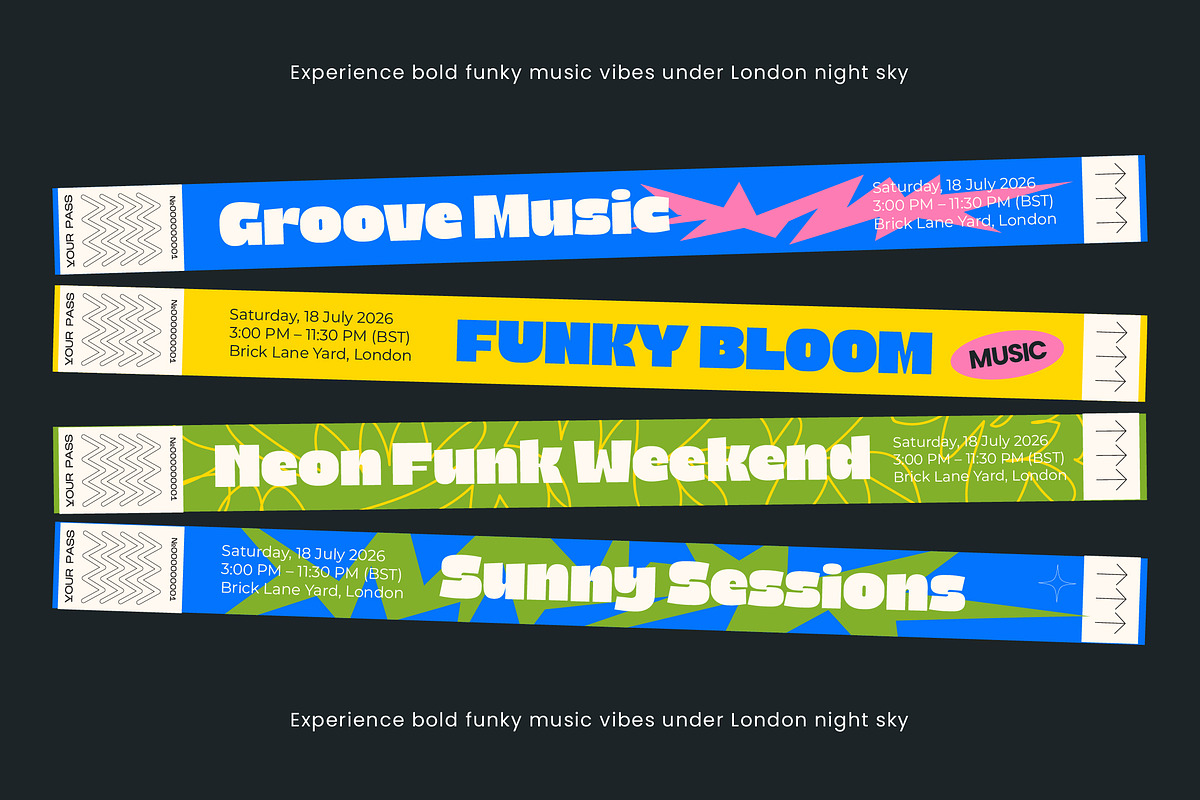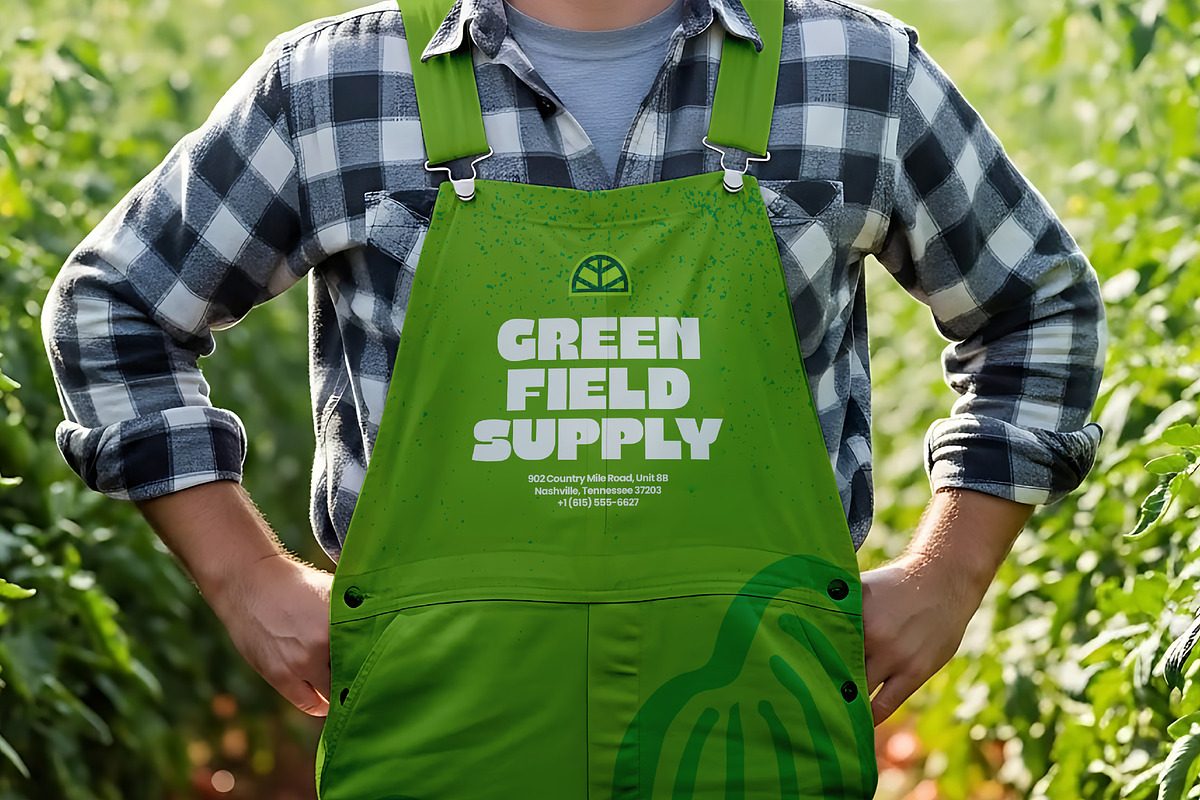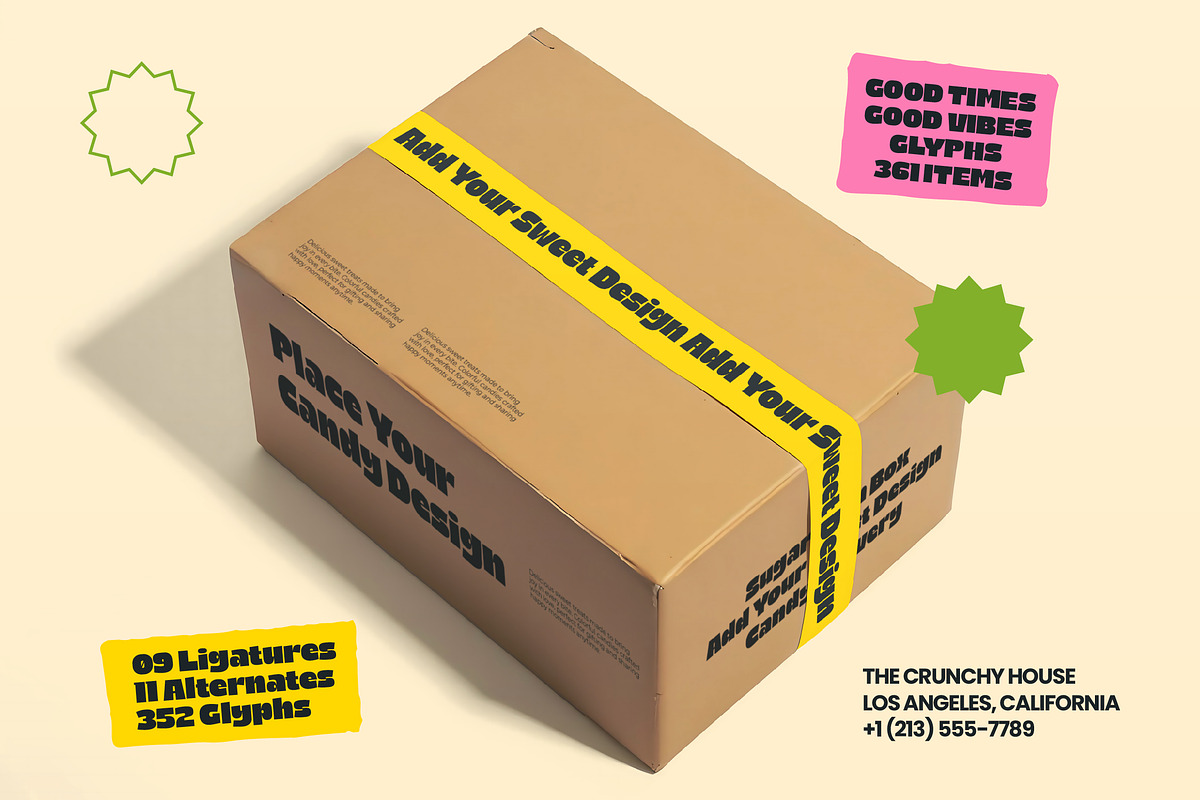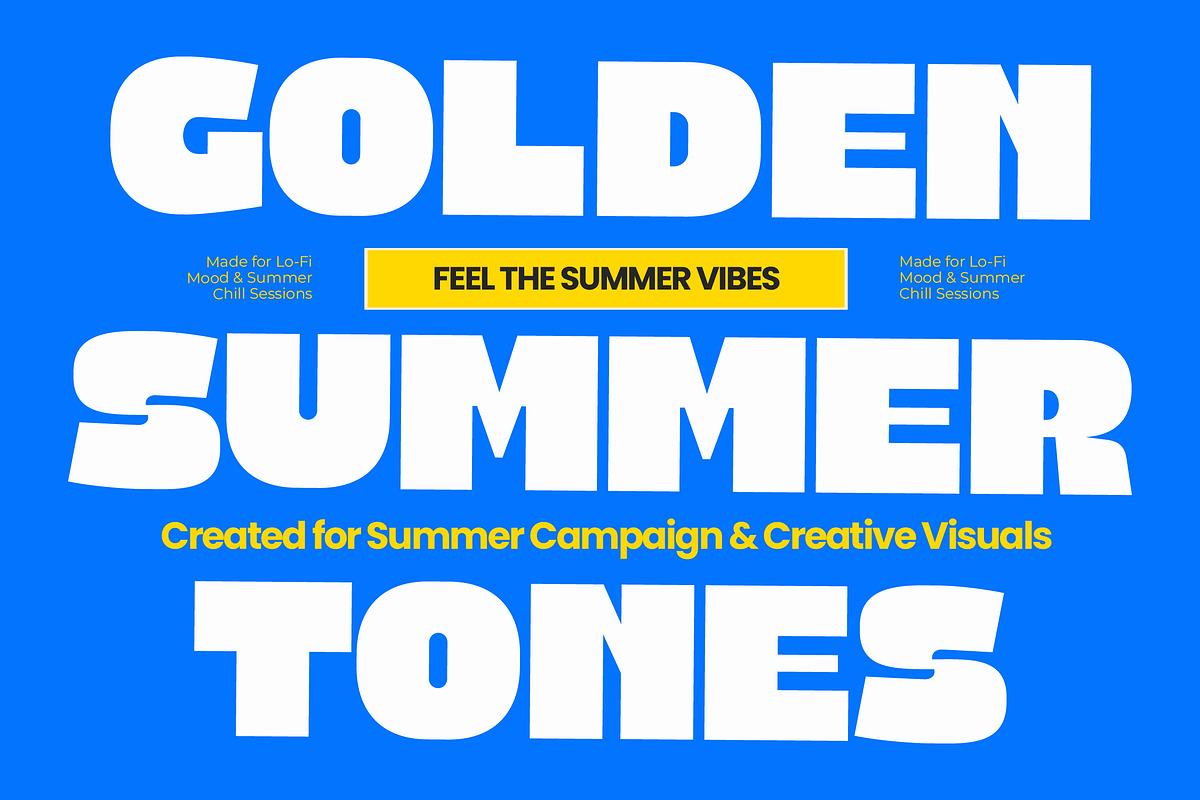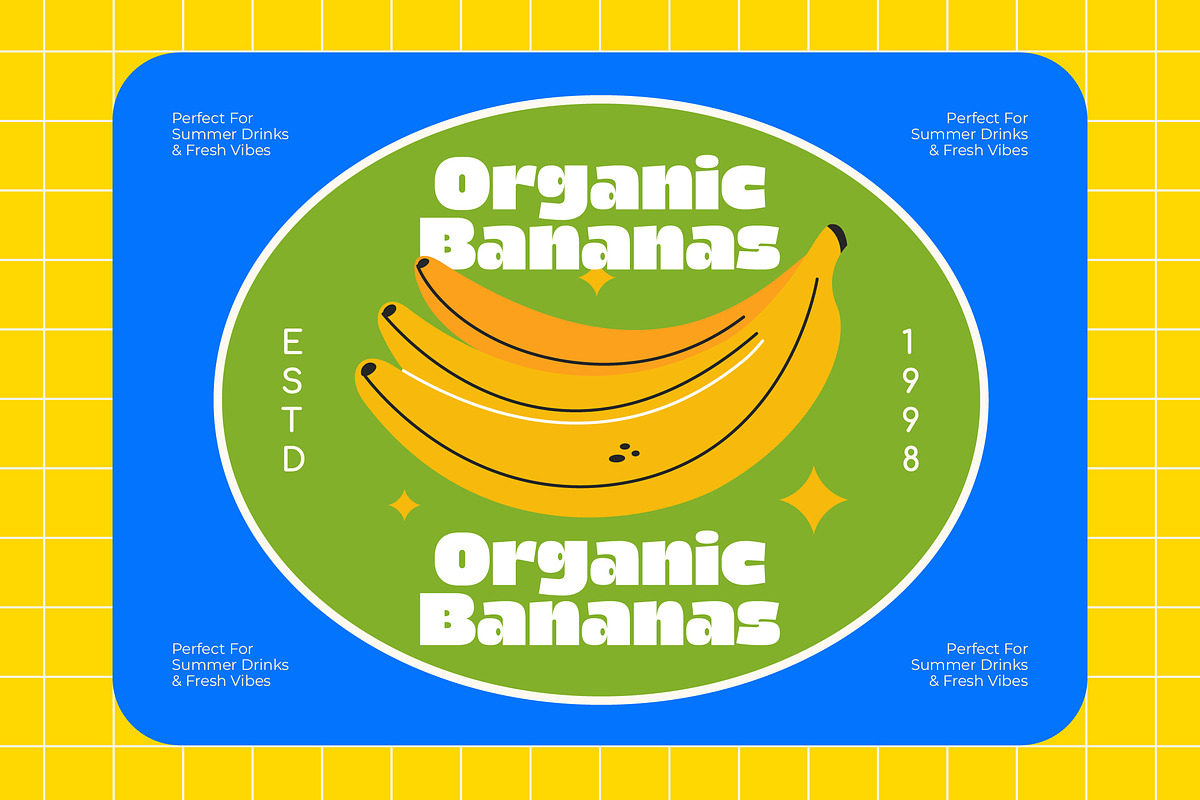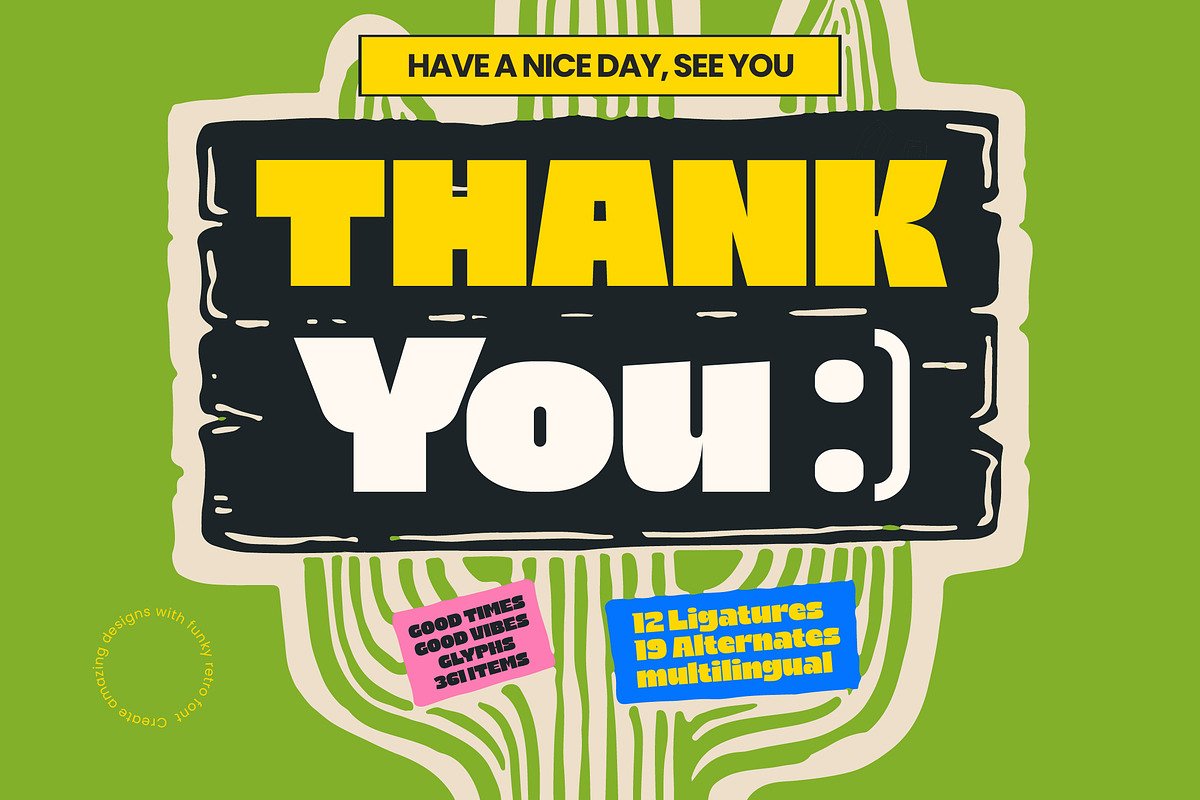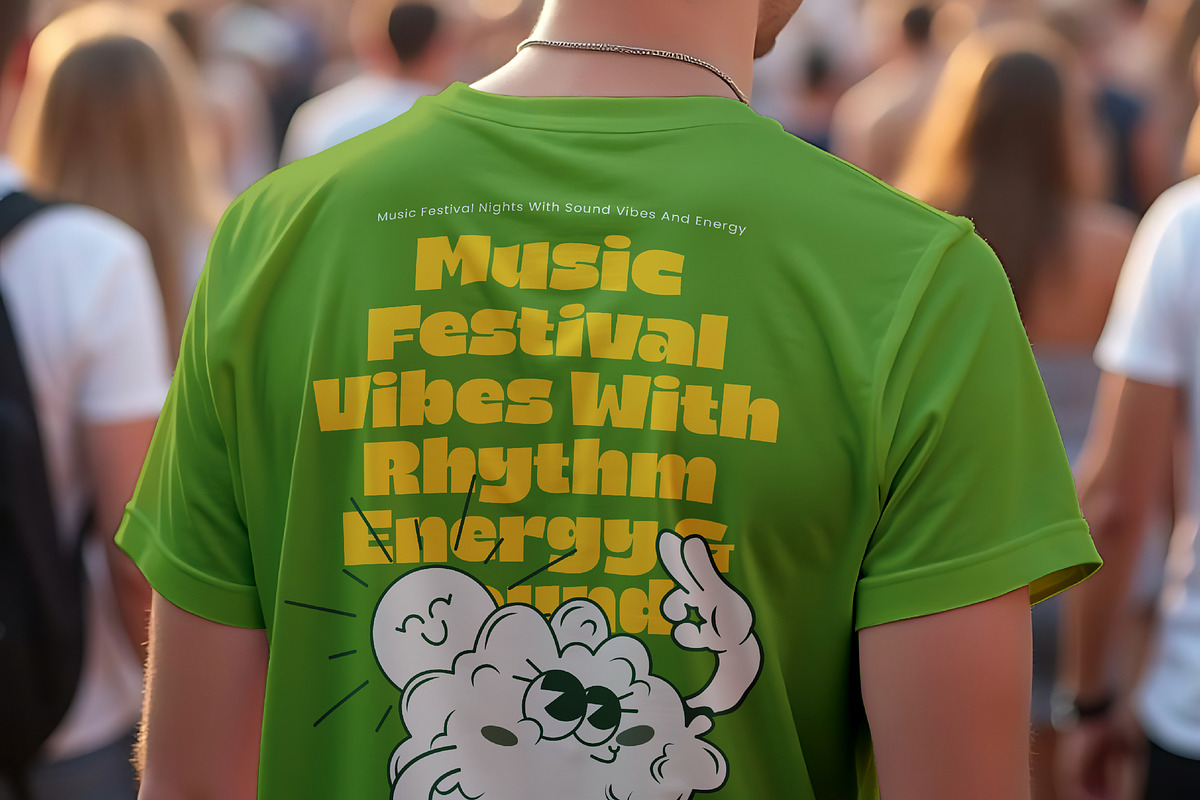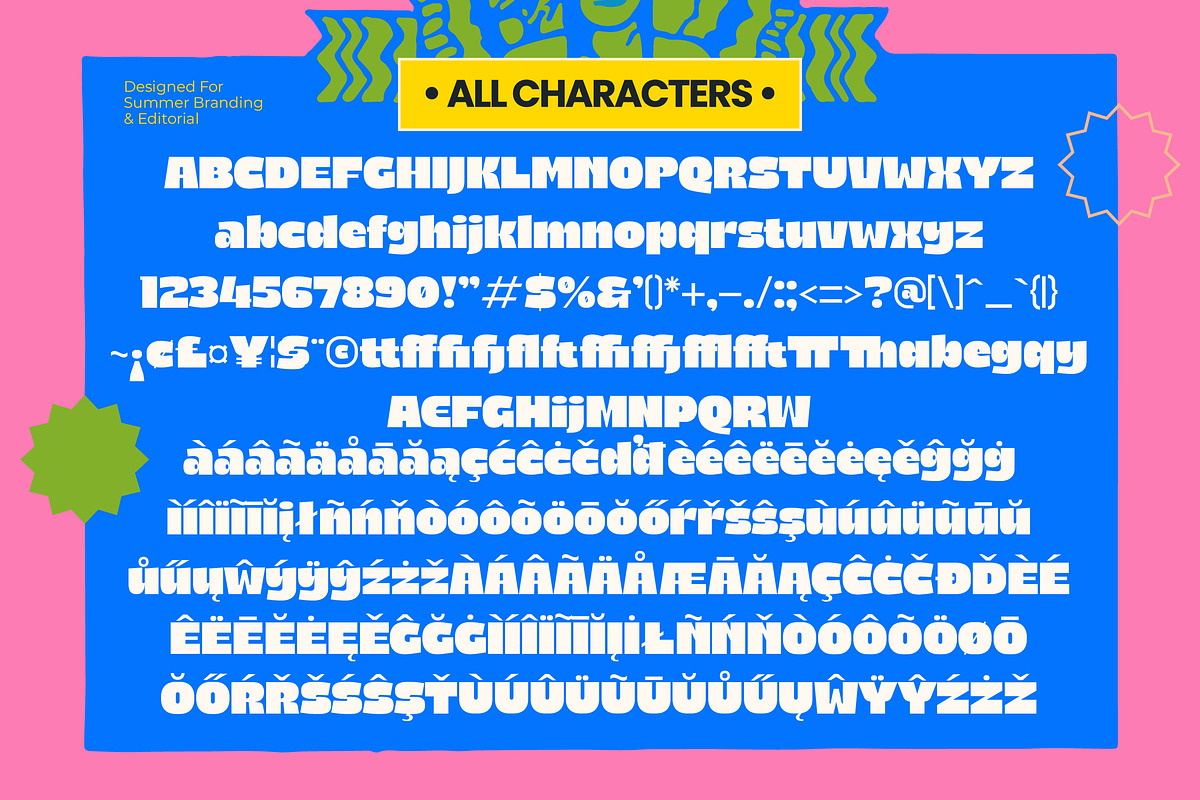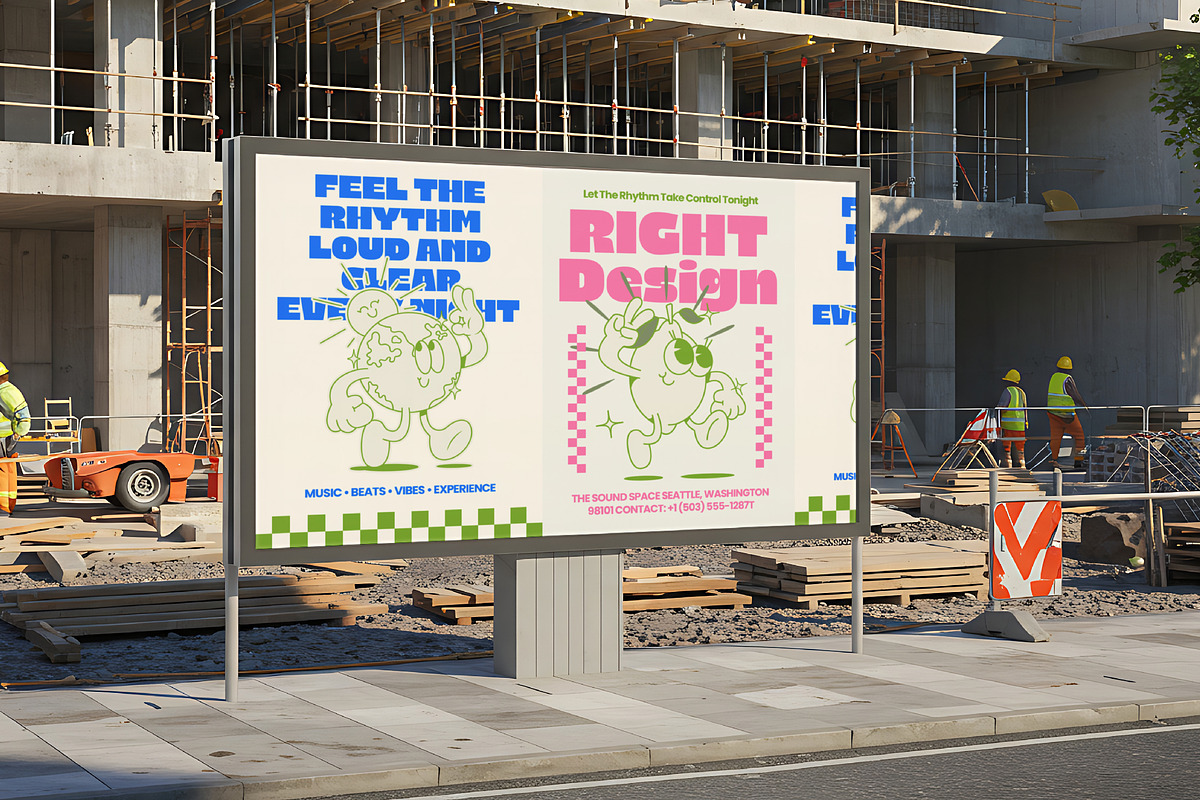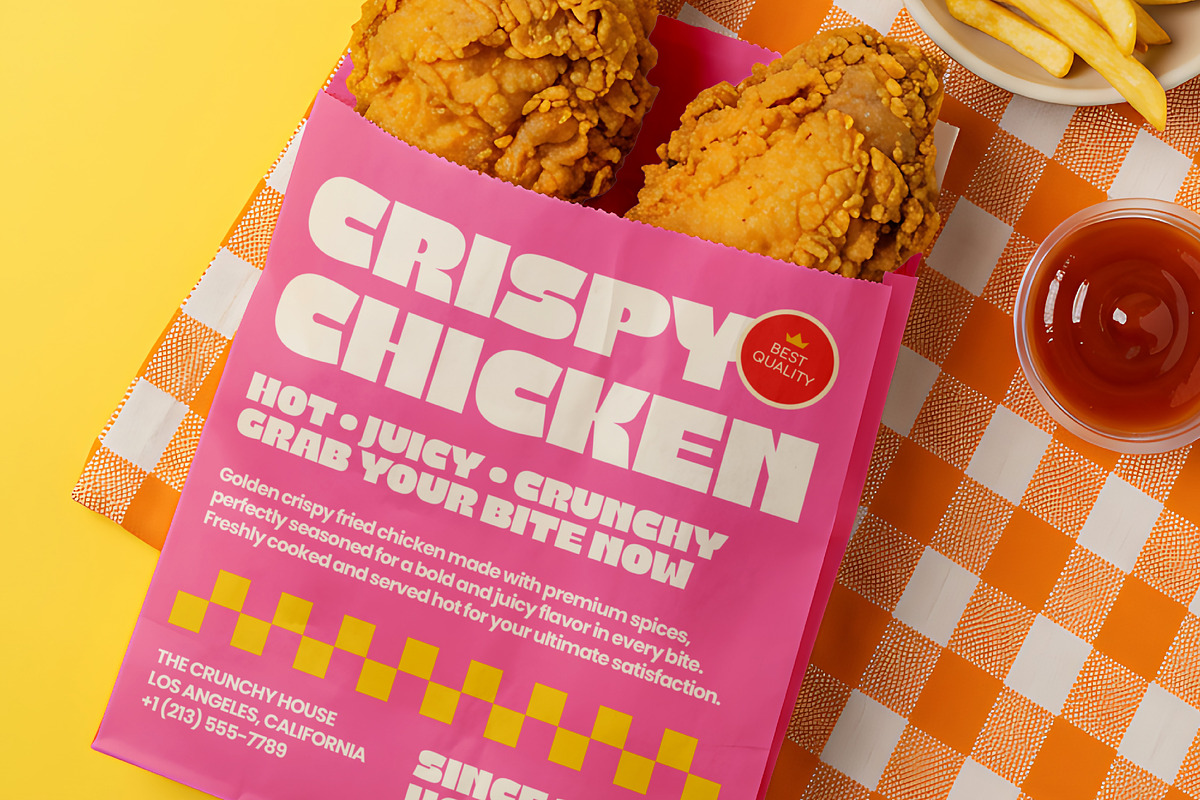
Fresh Chunky Retro Groovy Sans
Fresh Chunky – Retro Groovy Sans Display , Unleash the power of bold nostalgia with Fresh Chunky – Retro Groovy Sans Display, a typeface designed to command attention and evoke a sense of playful energy. This high-impact display font features ultra-thick strokes and fluid curves that perfectly capture the essence of 1970s retro-revival aesthetics. Whether you are aiming for a psychedelic vibe or a modern streetwear look, Fresh Chunky – Retro Groovy Sans Display delivers a commanding visual presence that transforms standard text into a compelling design statement.
Precision engineering meets creative flair through a comprehensive set of creative alternates and stylistic ligatures that provide limitless customization. With its extensive multilingual support, Fresh Chunky – Retro Groovy Sans Display adapts seamlessly across global markets, making it incredibly versatile for international projects. This technical flexibility ensures that your visual identity remains consistent and professional, regardless of the language or region, providing a polished typographic solution for high-end commercial ventures.
Elevate your brand presence with a font that is perfect for luxury branding, dynamic packaging, and engaging editorial design. Fresh Chunky – Retro Groovy Sans Display is the ideal application for merchandise design, social media graphics, and poster layouts where a distinctive personality is required. Its ability to balance playful proportions with professional readability makes it a versatile asset for any modern design toolkit focused on brand storytelling.
Transform your creative vision into a timeless masterpiece by integrating Fresh Chunky – Retro Groovy Sans Display into your next creative campaign to ensure maximum audience engagement. Its bold silhouette and organic flow provide an instant aesthetic upgrade, making it ideal for brands looking to establish a memorable brand voice. Invest in a high-quality typeface that offers both visual impact and commercial longevity, and watch your designs come to life with timeless groovy charm.
Numerals
Punctuations (OpenType Standard)
Accents (Multilingual Characters)
Ligatures and Alternative Style Stylistic Set